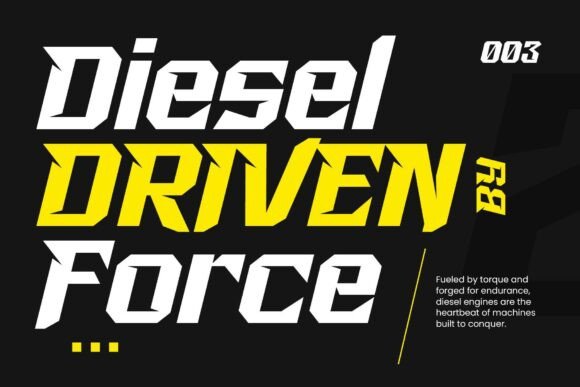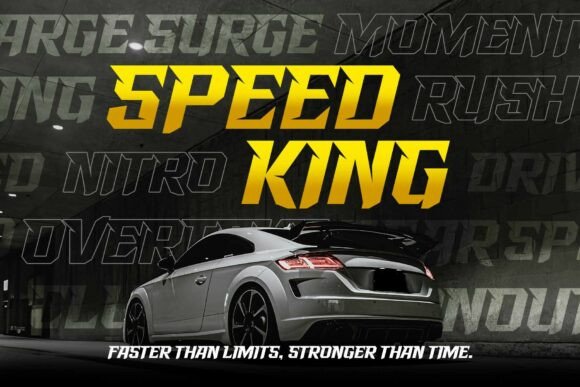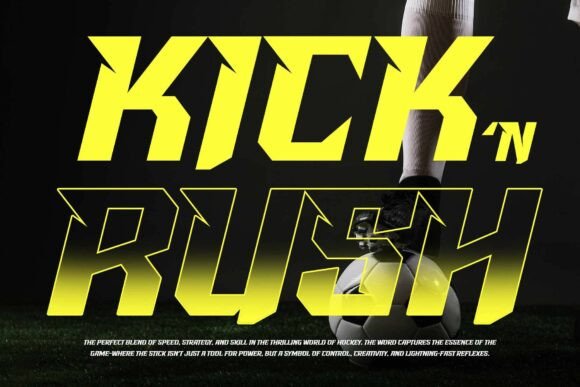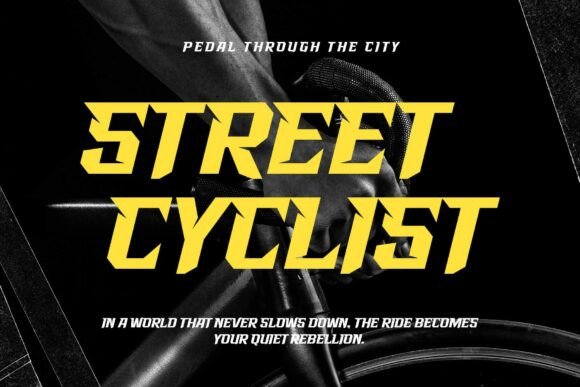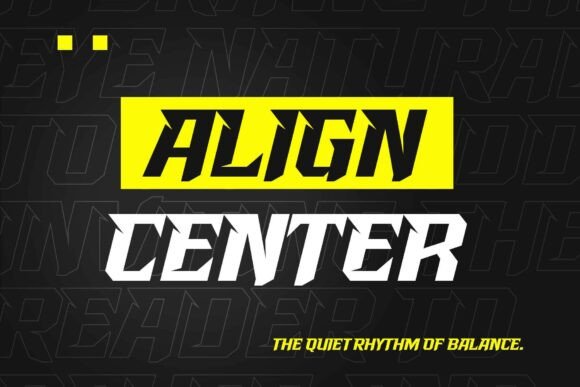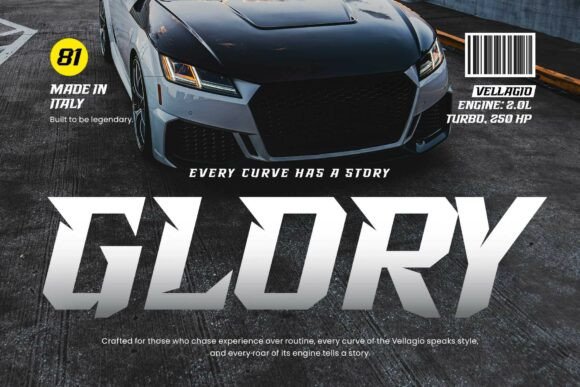
Introduction to Racing Starter Font
Racing Starter is a bold and dynamic typeface built for speed, power, and precision.
With its square, narrow structure, sharp edges, and energetic sliced effects, this font brings a futuristic edge to any design Crafted for sports and action-packed themes, Racing Starter is perfect for branding on sticks, bikes, wheels, helmets, bags, jerseys, and more.